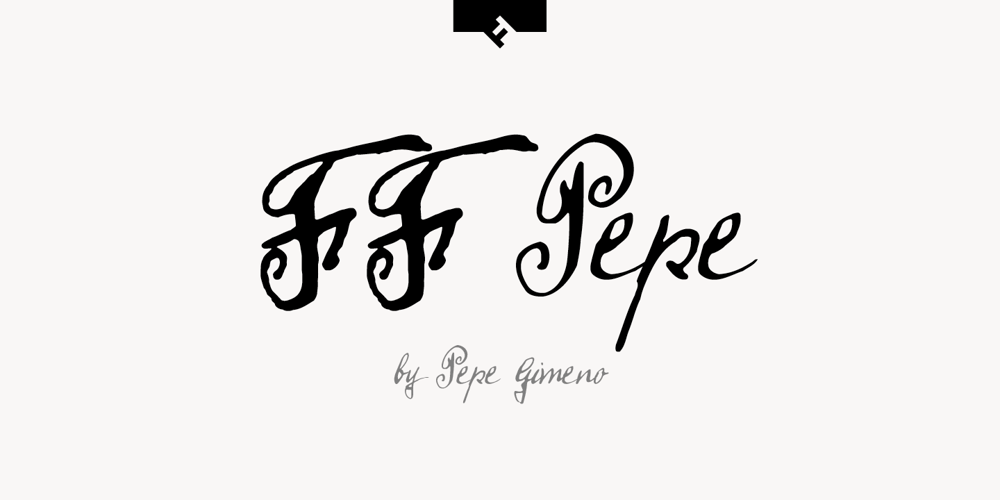
FF Pepe Font Family was designed by Pepe Gimeno and published by FontFont. FF Pepe contains 1 styles and family package options. Spanish type designer Pepe Gimeno created this script FontFont in 2002. The font is ideally suited for advertising and packaging, festive occasions, editorial and publishing as well as poster and billboards. FF Pepe provides advanced typographical support with features such as swashes, ligatures, alternate characters, and case-sensitive forms. It comes with tabular lining and proportional oldstyle figures.